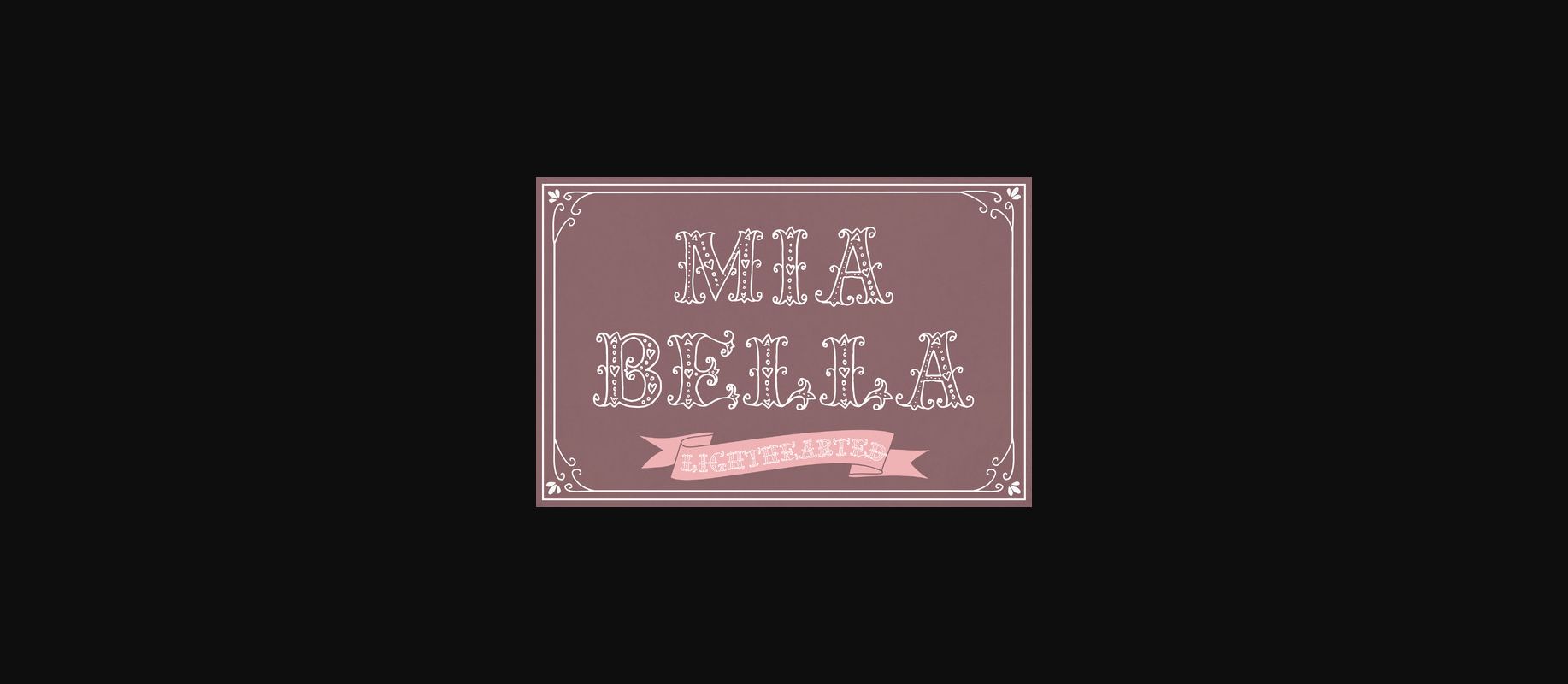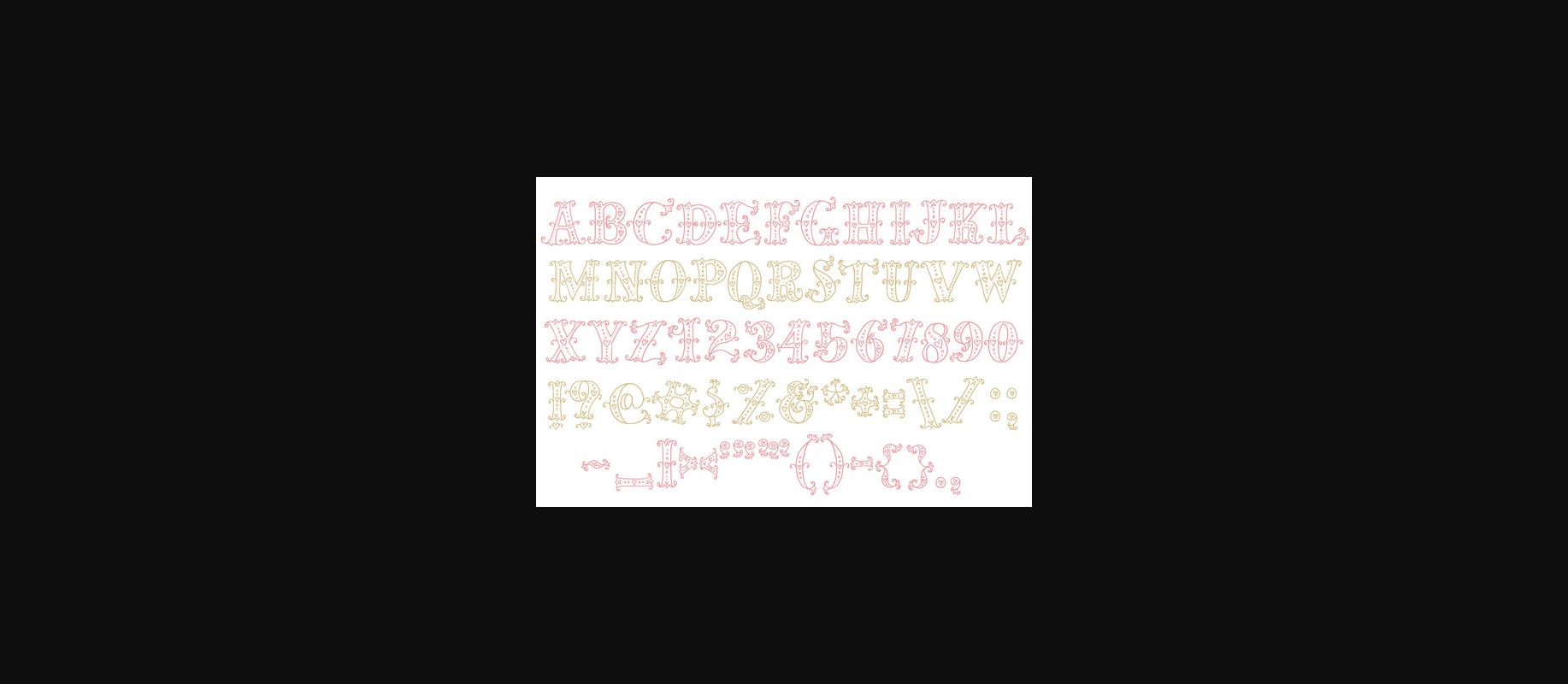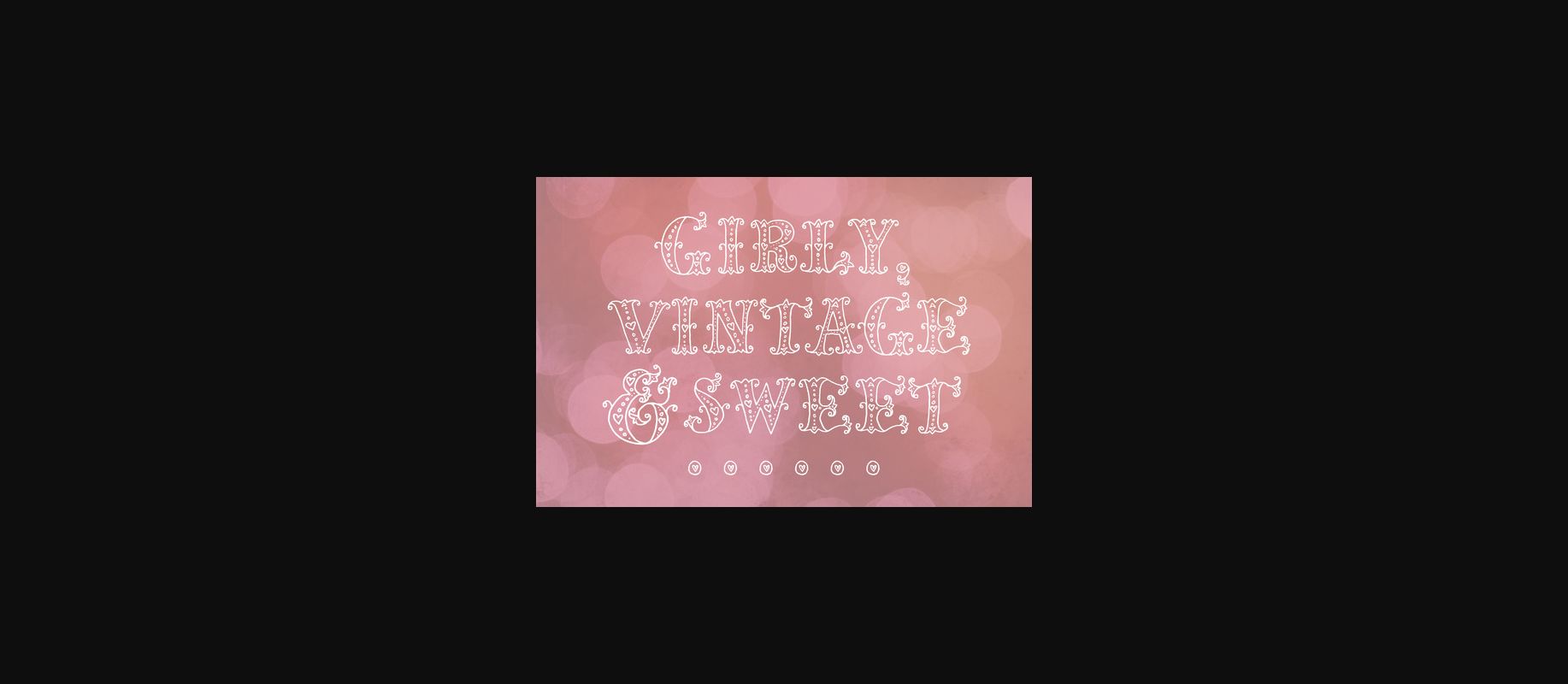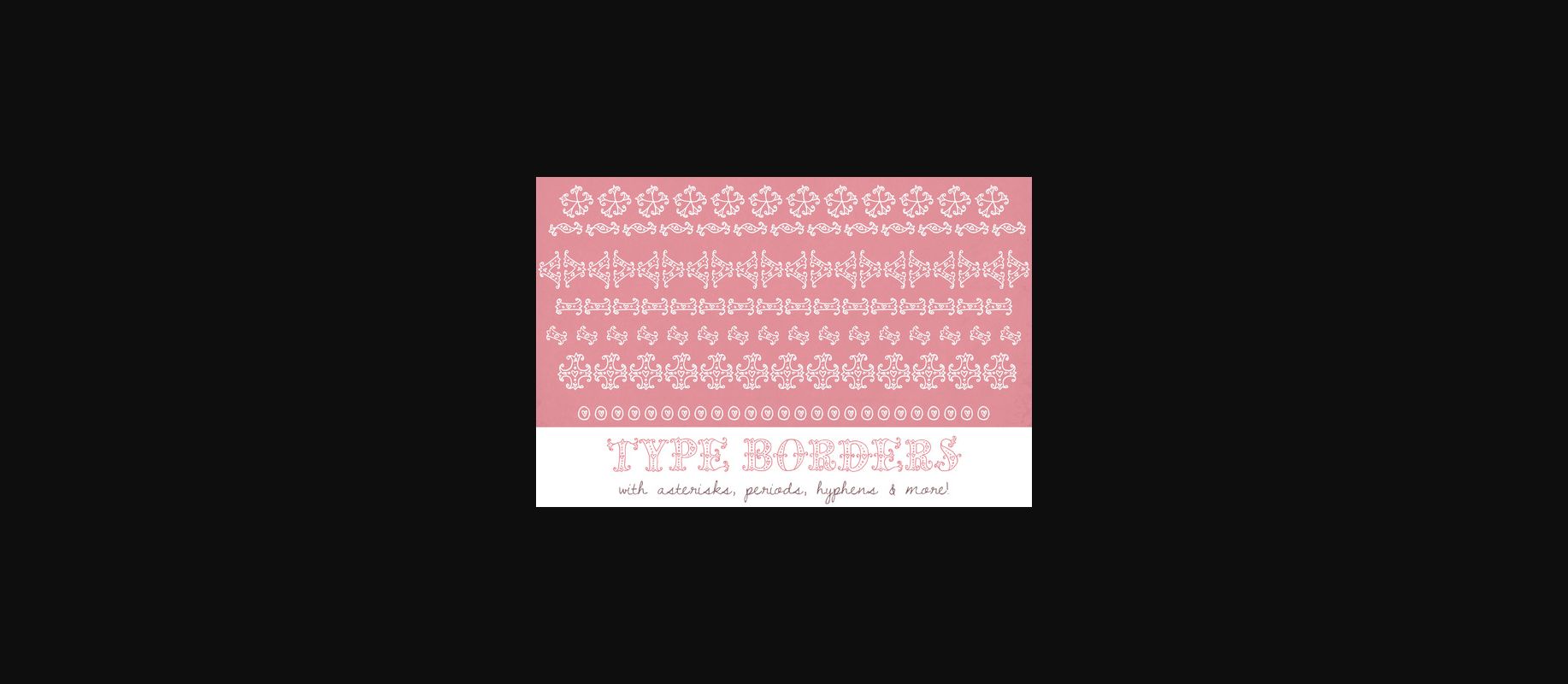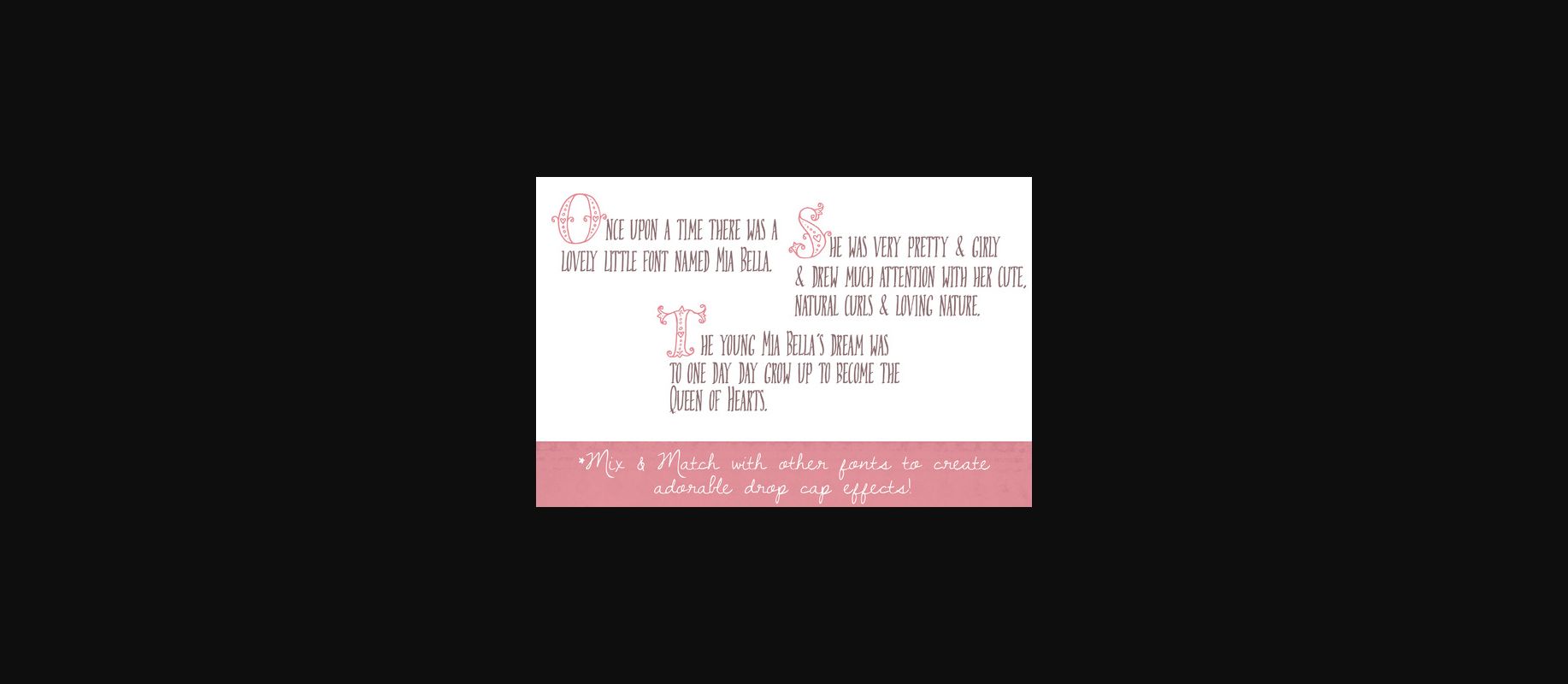
Mia Bella Lighthearted Font
About Mia Bella Lighthearted Font
Mia Bella Lighthearted is the Light Version of Mia Bella.
Mia Bella Lighthearted is a perfect sweet and romantic hand-drawn font that service many purposes. Imagine this beautiful font on a wedding invitation or a thank you card. How about making beautiful decorated wall-art for the living room or nursery?
Mia Bella Lighthearted has a very vintage look and feel to it. Every character of the font contains beautiful little details which makes this font truly unique.
Mia Bella Lighthearted comes with extra bonus borders that easily can be accessed by typing: ***** …… ~~~~~~ “““` +++++ or ——. These characters can also be combined to create your own custom unique borders.